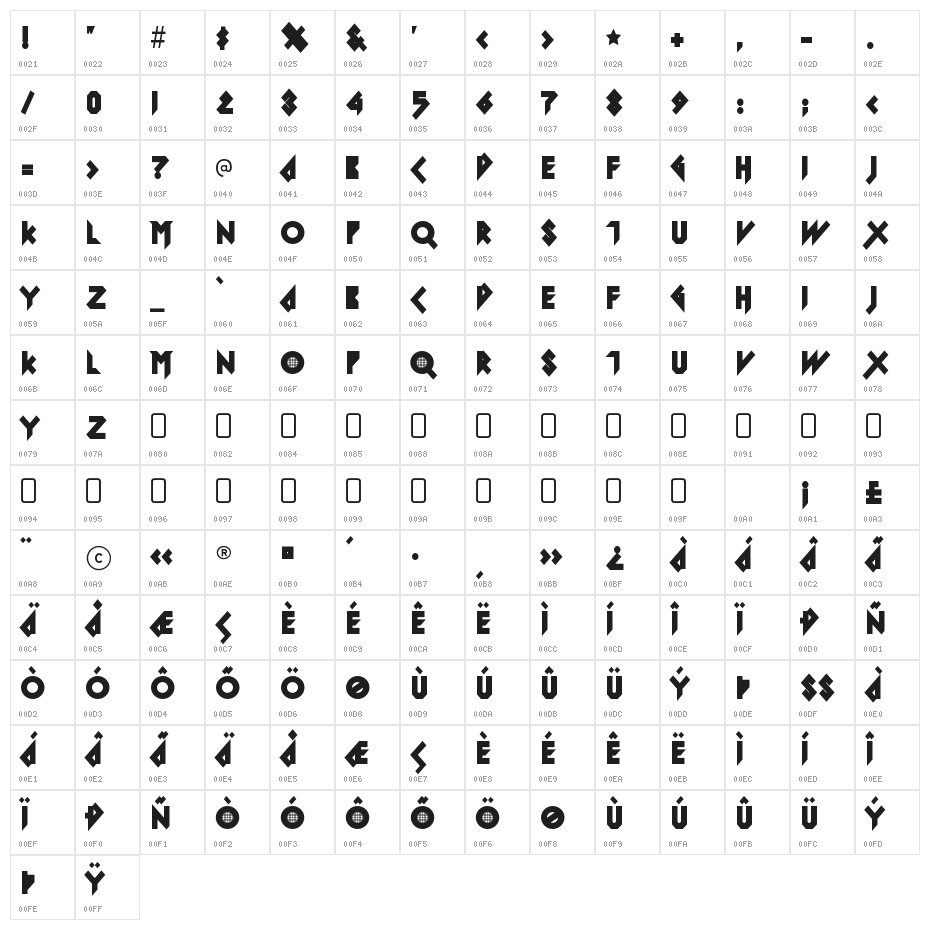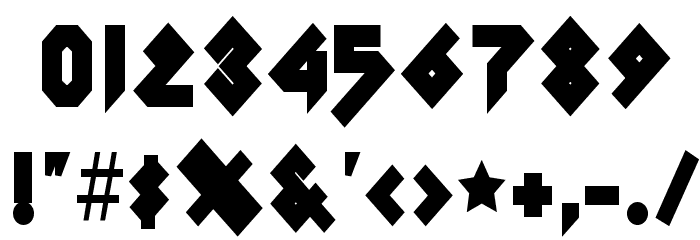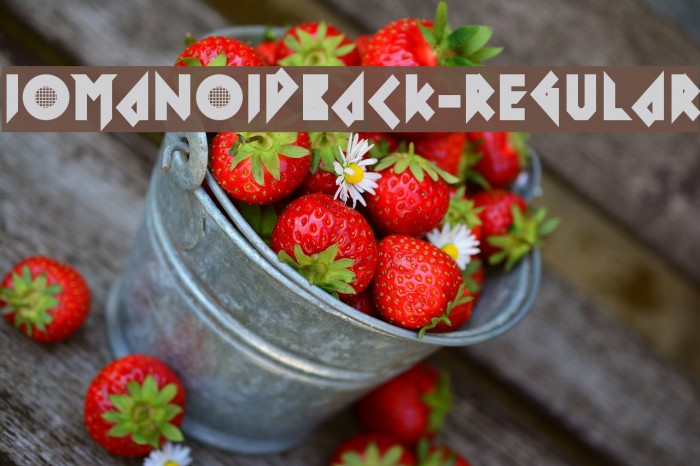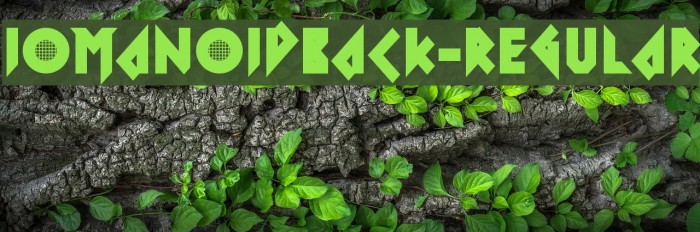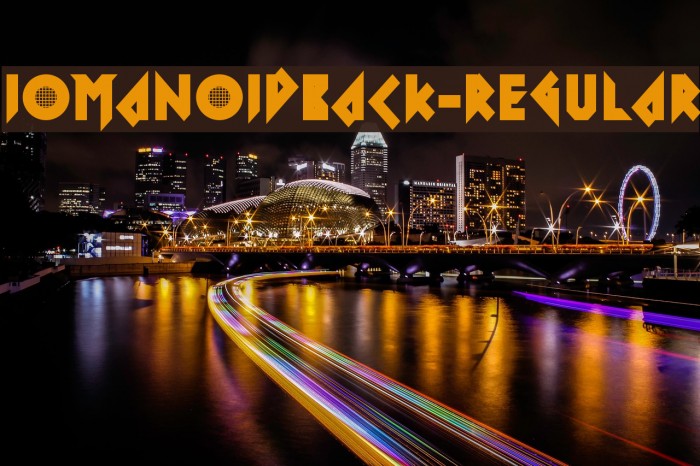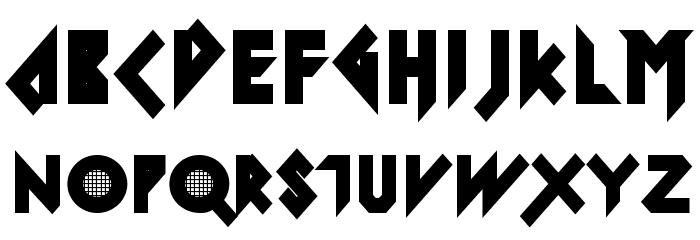
IomanoidBack-Regular Font
IomanoidBack-Regular Description
This font features a bold and geometric design with sharp angles and a futuristic aesthetic. The characters are constructed with a consistent use of straight lines and pointed edges, giving it a distinct and edgy appearance. The uppercase letters are particularly striking, with a strong presence that commands attention. The numbers and special characters maintain the same angular style, ensuring uniformity across the font. This typeface is ideal for projects that require a modern and dynamic look, such as sci-fi themed designs, video game titles, or tech-related branding.
| Overall Style | Futuristic, Edgy, Modern |
| Proposed Projects | Ideal for sci-fi designs, video game titles, tech branding, and modern posters. |